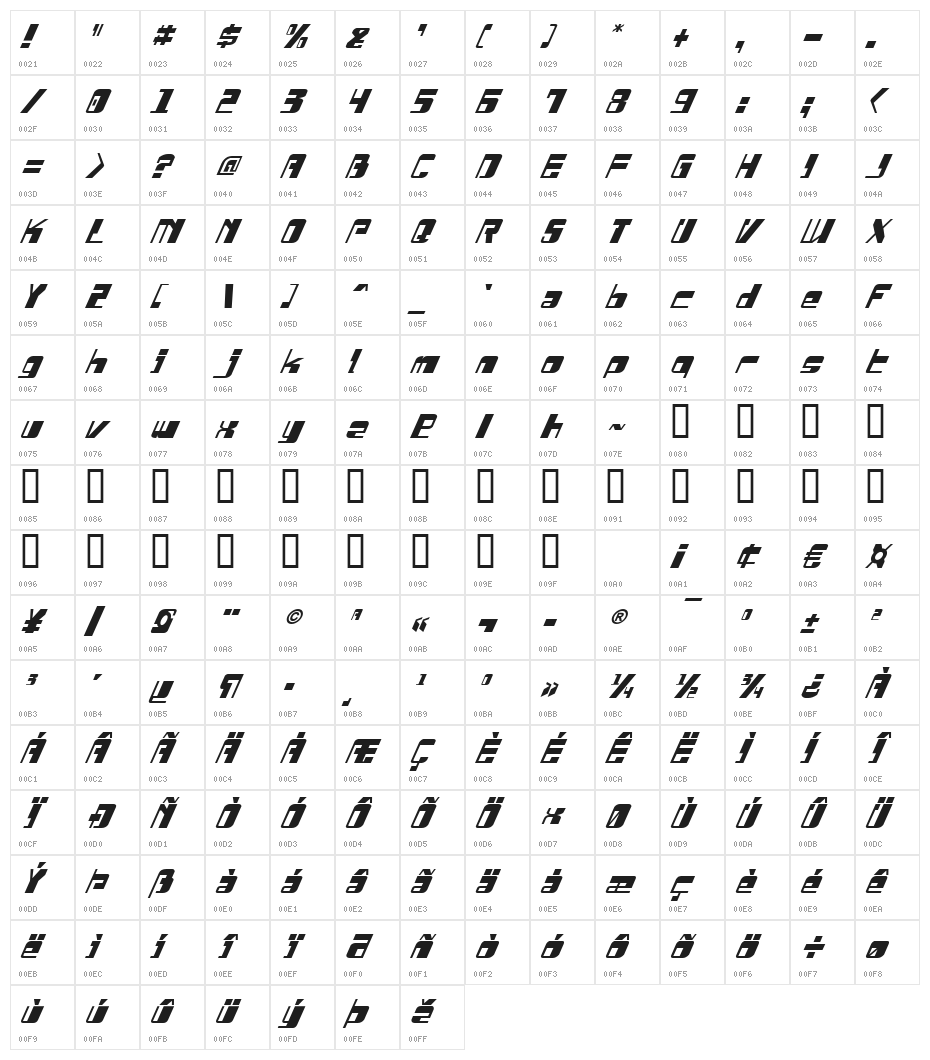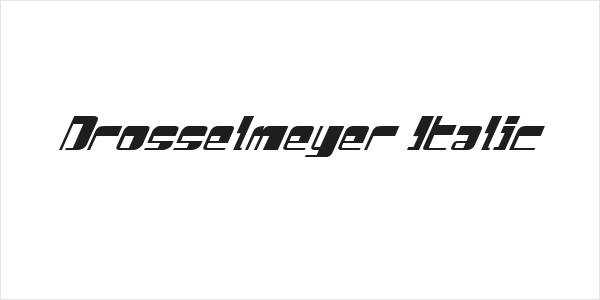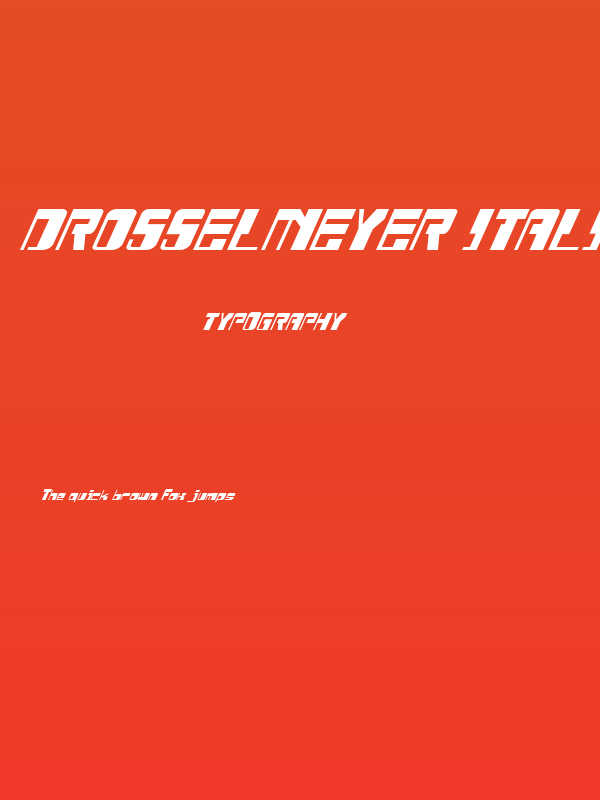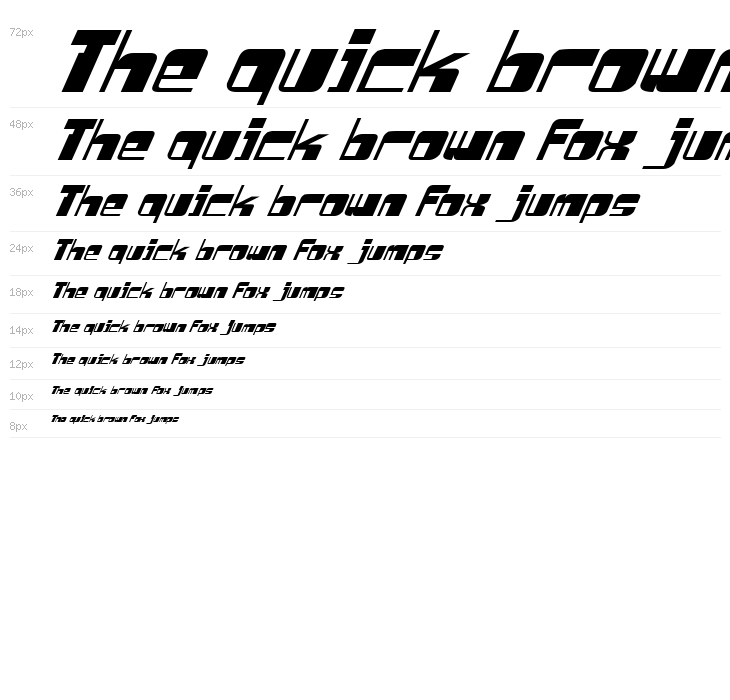
Drosselmeyer Italic Font
Drosselmeyer Italic Description
This font features a bold, italicized style with a futuristic and dynamic appearance. The characters are sharply angled, giving them a sense of motion and energy. The uppercase and lowercase letters maintain a consistent slant, enhancing the italic effect. The numbers are equally stylized, with a uniform thickness that complements the overall design. Special characters are included, matching the bold and angular aesthetic. This font is ideal for projects that require a modern and edgy look.
| Proposed Projects | Ideal for sci-fi themed designs, video game titles, tech branding, and dynamic posters. |